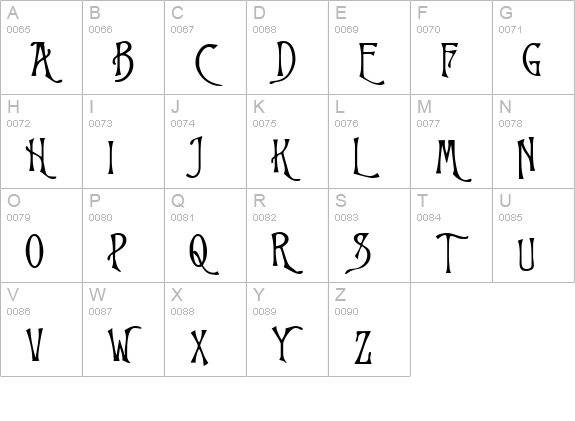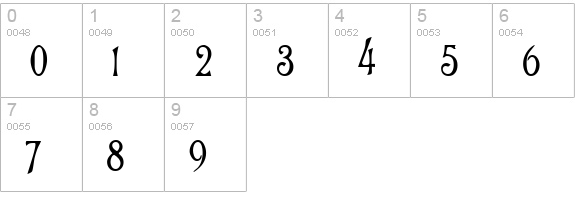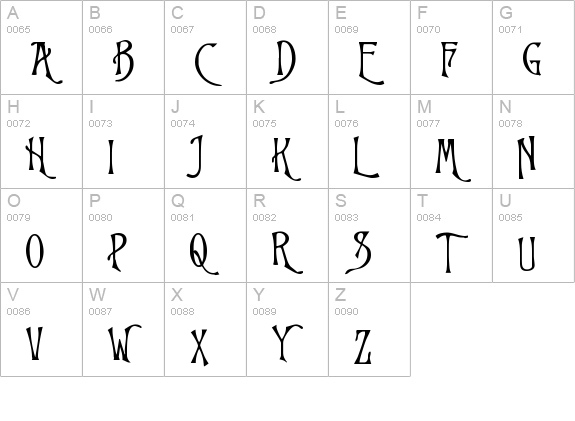
PS Bluegum Forest Font Details
PS Bluegum Forest font is a whimsical and playful typeface that exudes a sense of creativity and warmth. With its charming handwritten style and unique design elements, this font is perfect for adding a touch of personality to any project. Whether you're creating invitations, posters, or branding materials, PS Bluegum Forest font will surely stand out and make a statement. The best part is that PS Bluegum Forest font is completely free to download at FontsMarket.com. This means you can easily access this delightful font and incorporate it into your designs without any cost. So why wait? Add a touch of magic to your projects with PS Bluegum Forest font today!